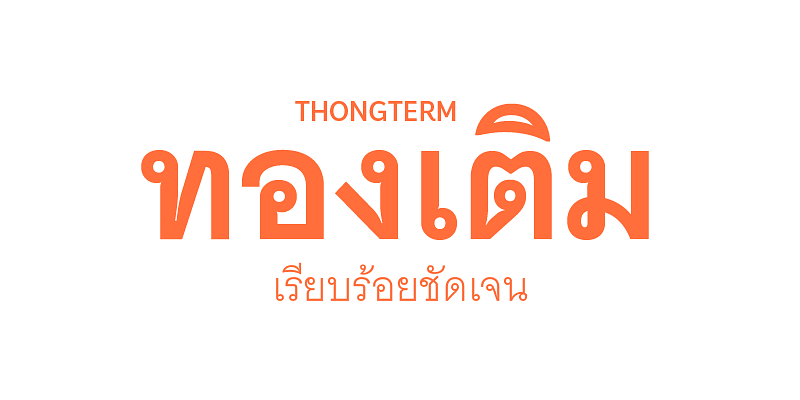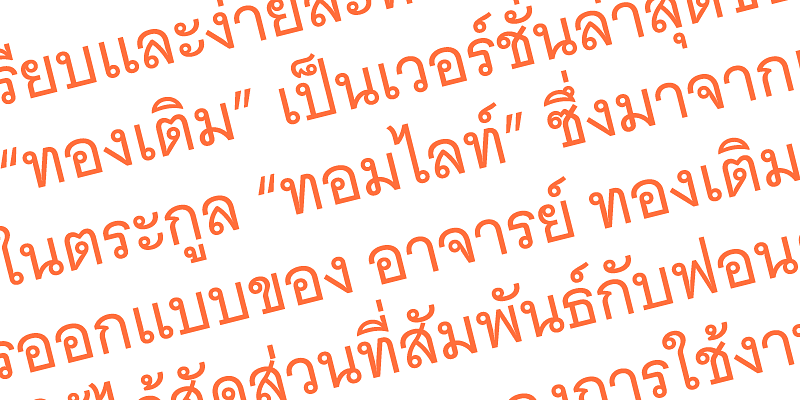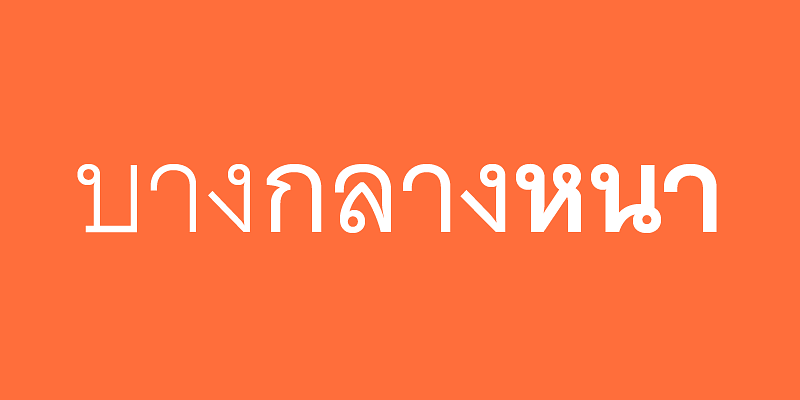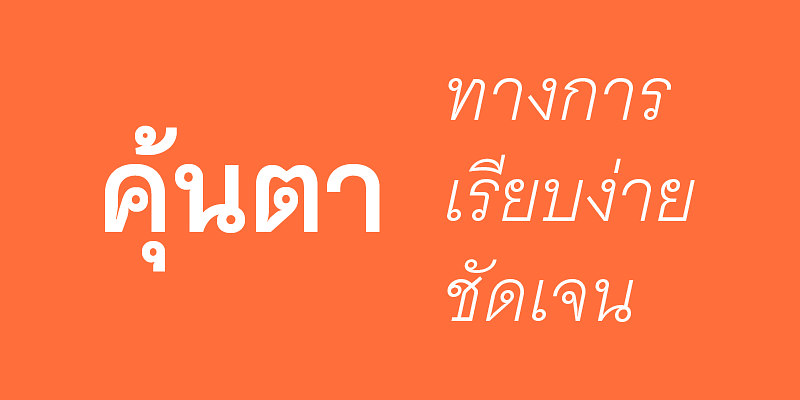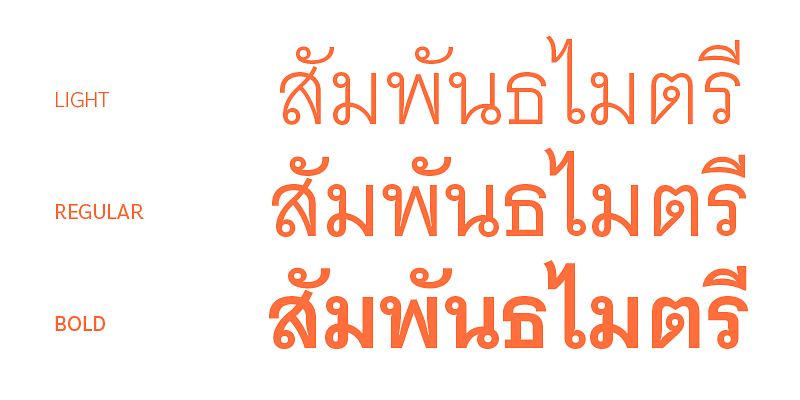
A simplistic Sans Serif Family typeface that is modern and clean. It is a revival typeface based on the iconic “Tomlight”, which now covers a wider range of usage in present time.